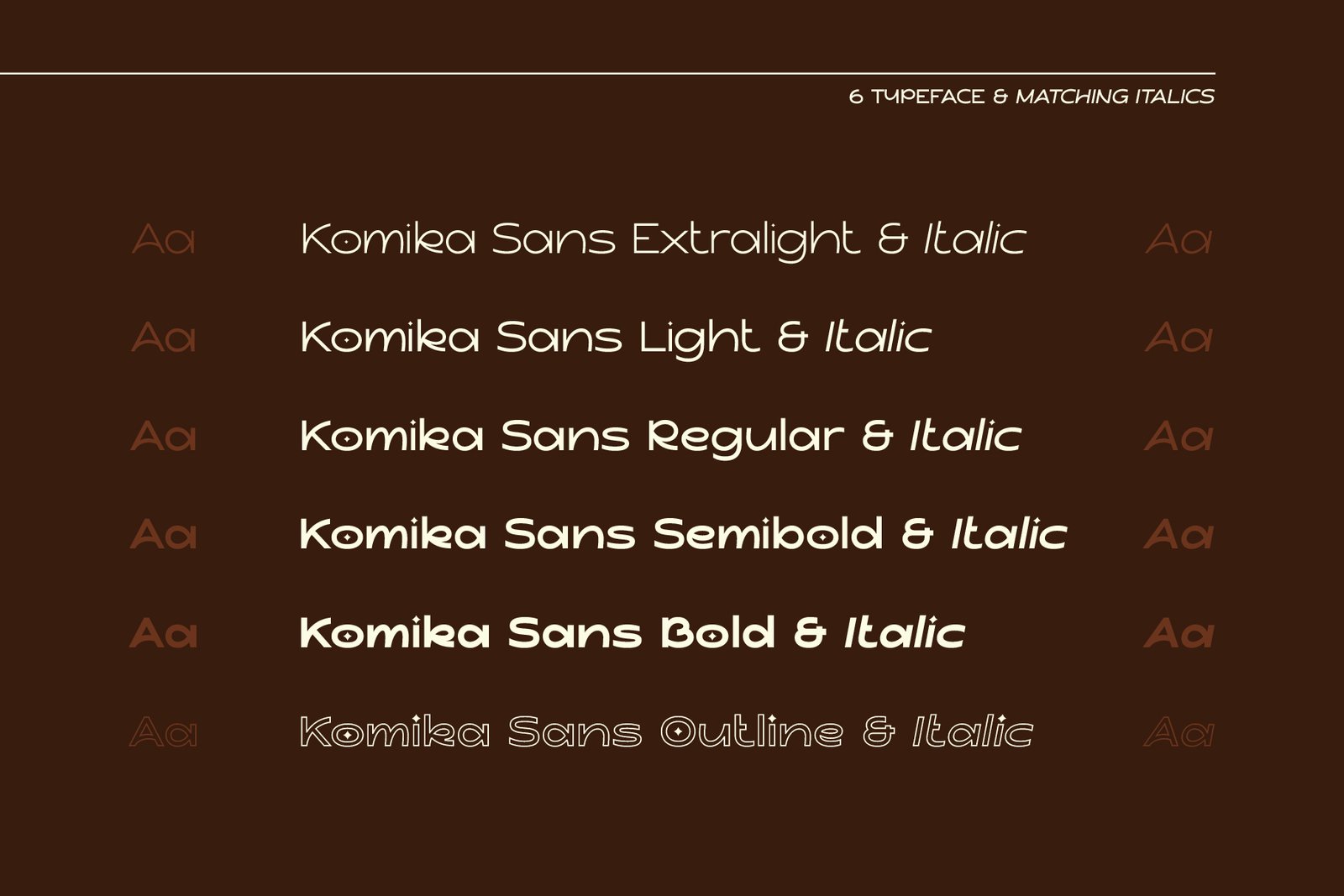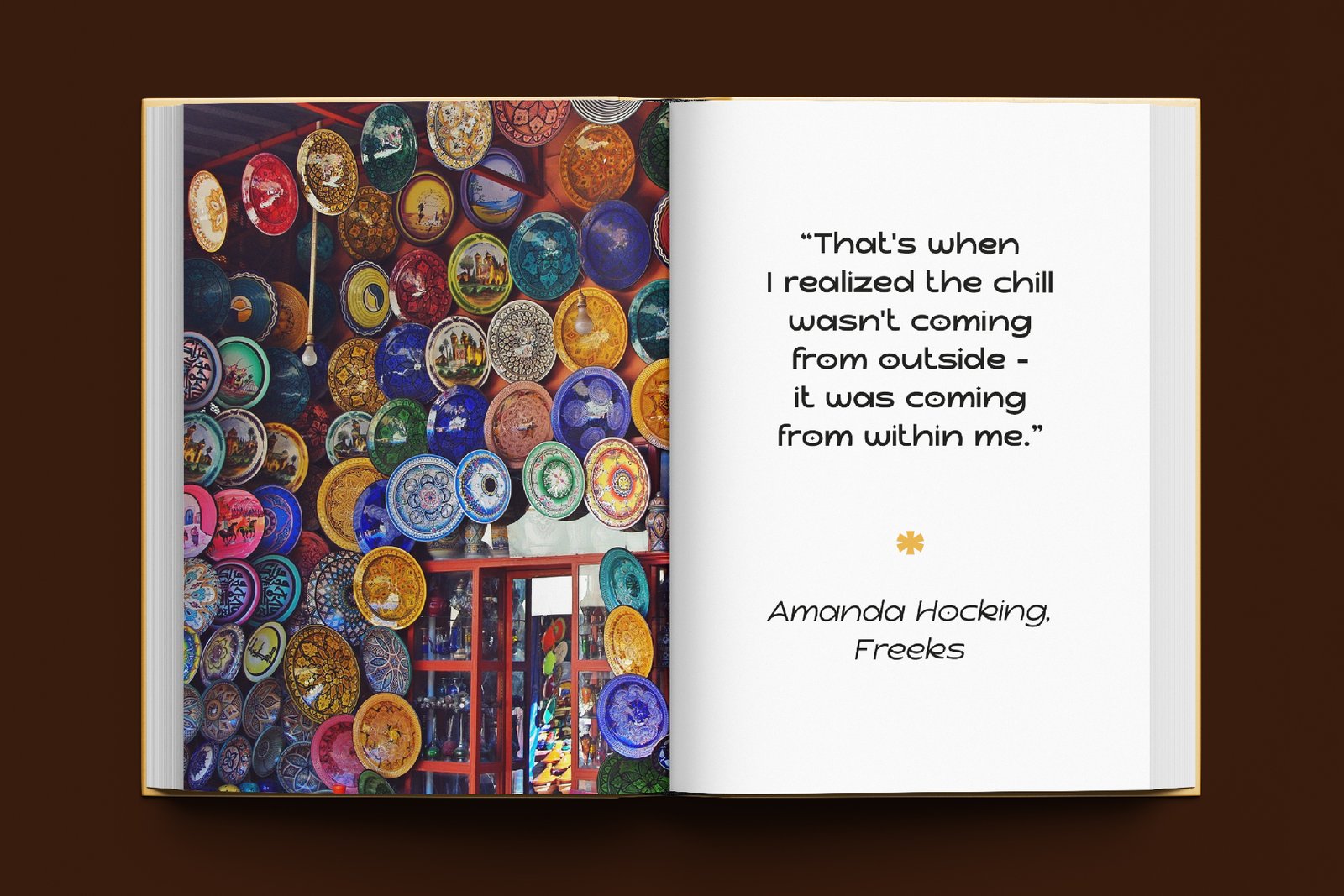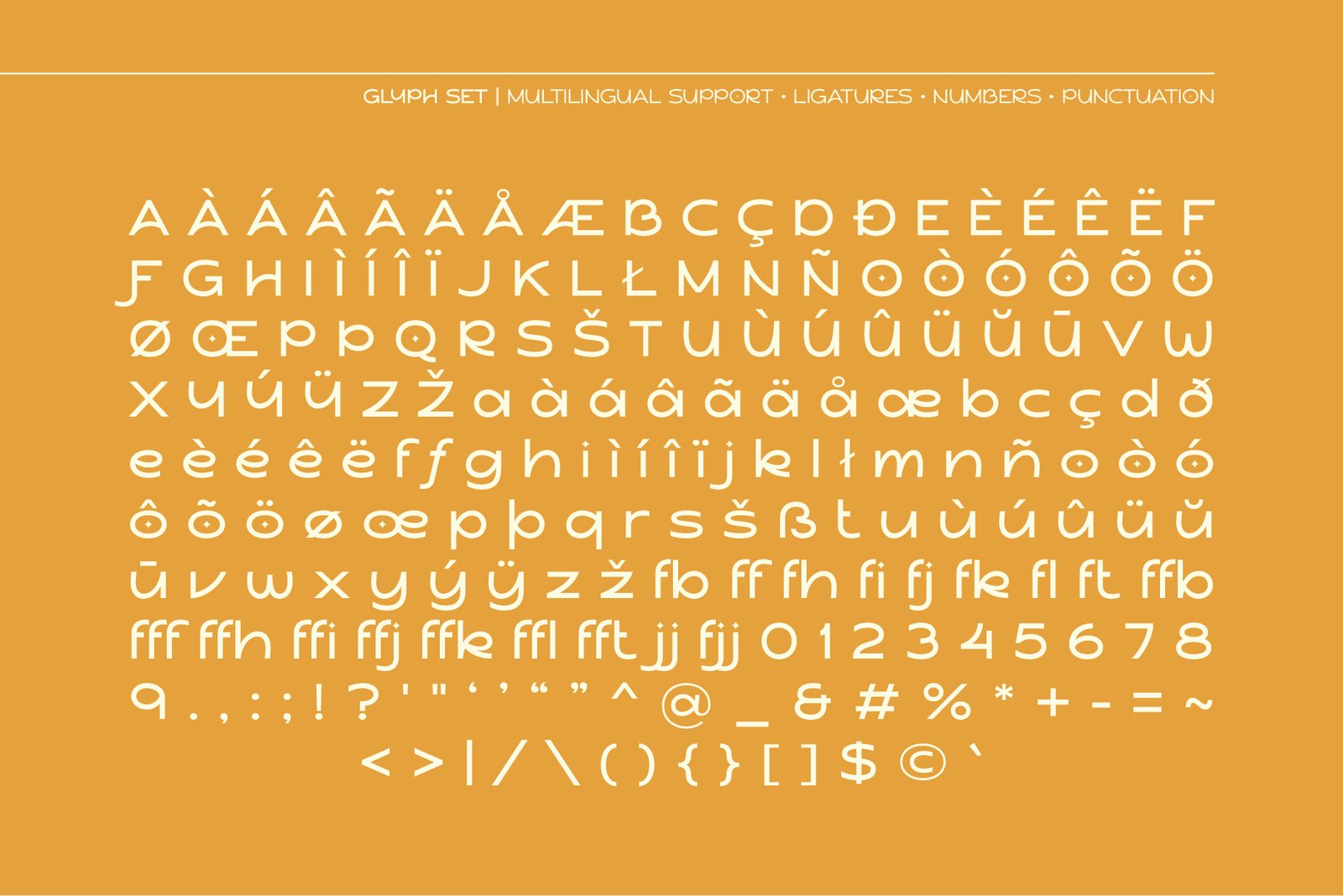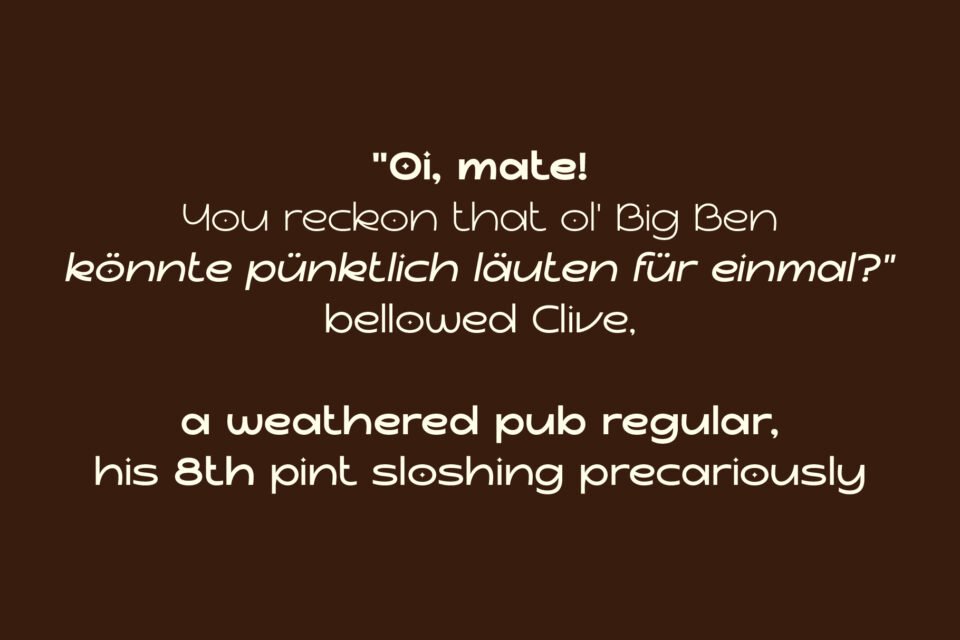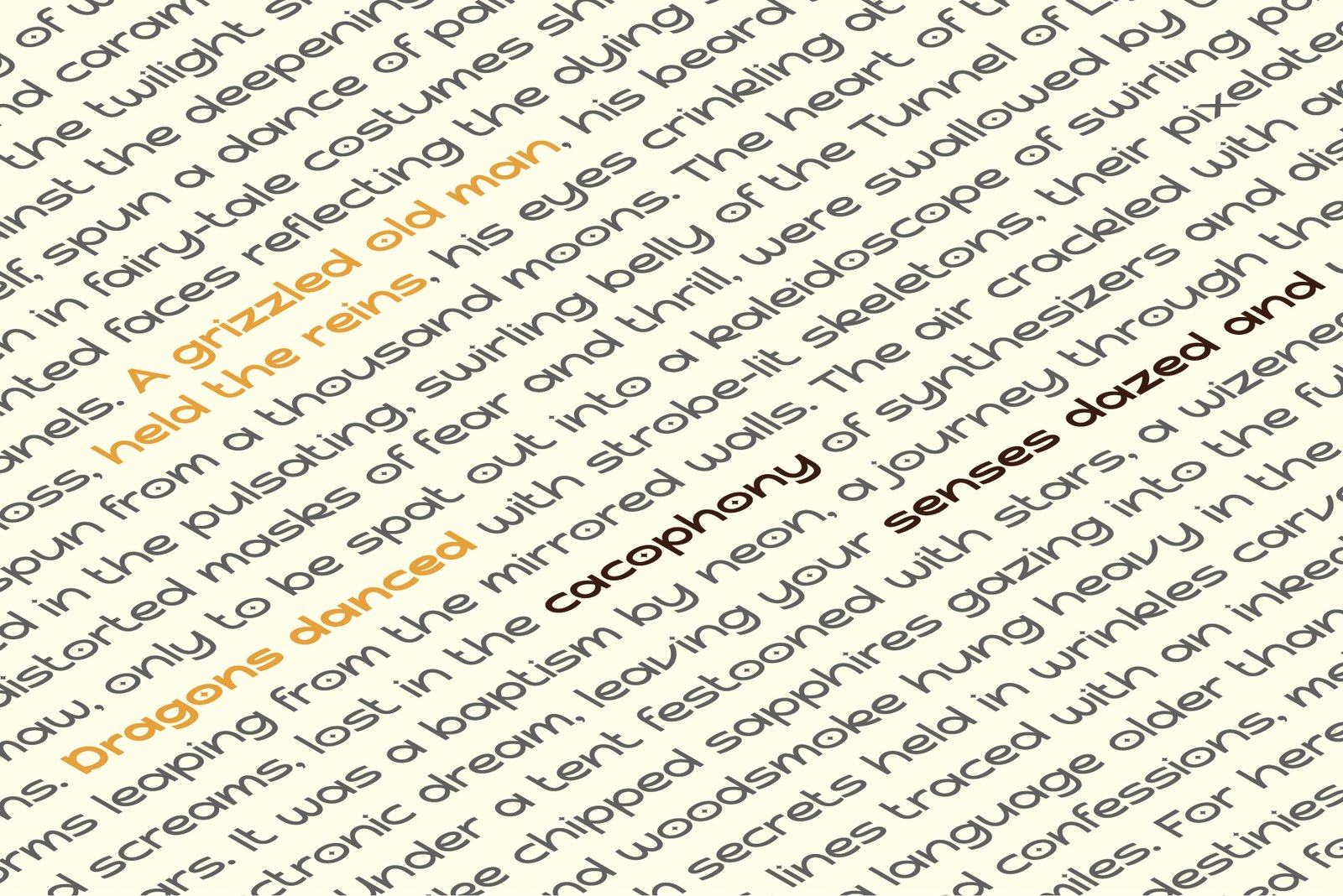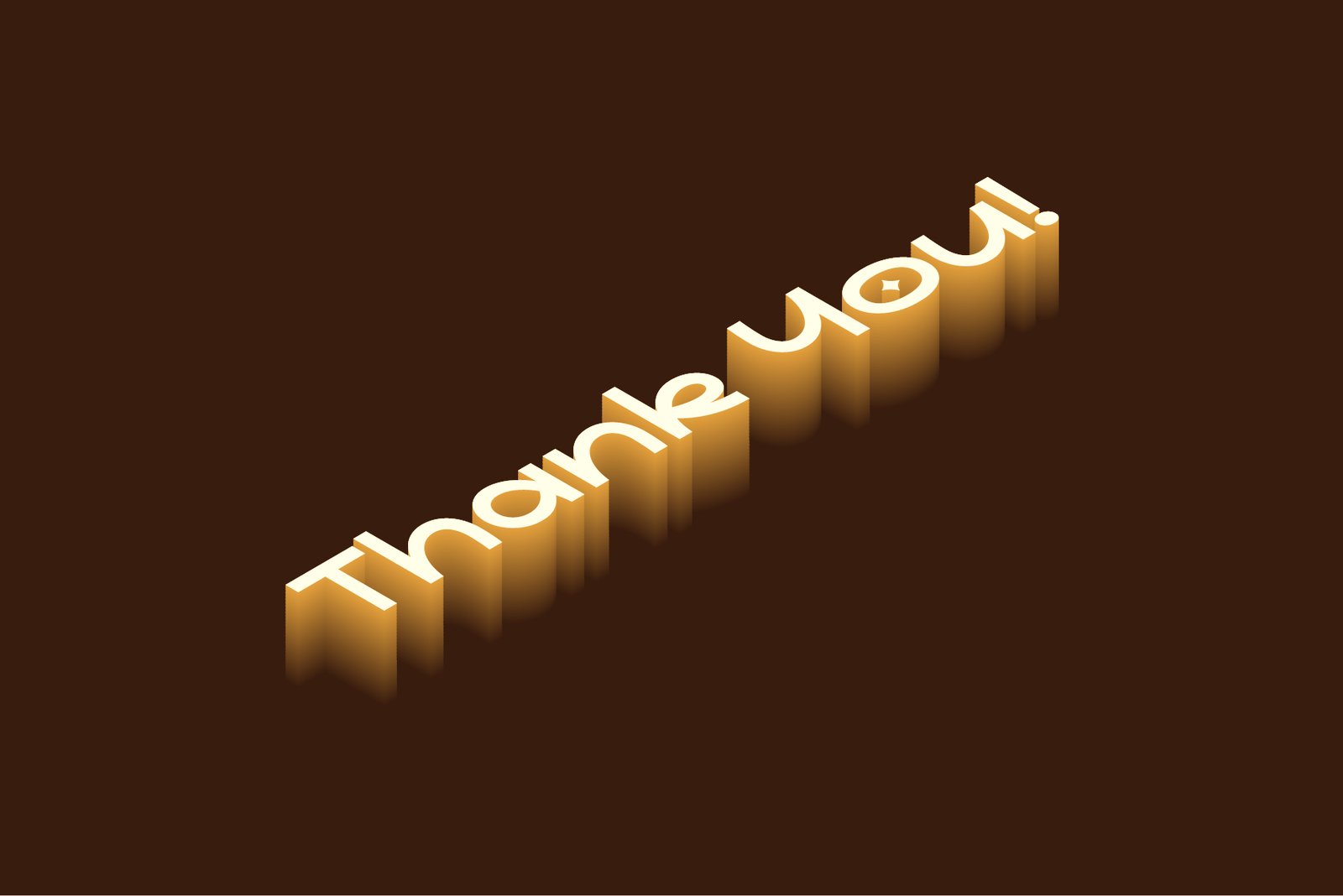
Komika Sans font family introduction, showing the full name and "modern wide sans serif family."
A sample text using the Komika Sans font, titled "Crafting Some Lore-Rich Magic."
Komika Sans font family showing all six weights: Extralight, Light, Regular, Semibold, Bold, and Outline, each with matching italics.
A book mockup displaying a quote in Komika Sans font, "That’s when I realized the chill wasn’t coming from outside – it was coming from within me."
Full glyph set for Komika Sans font, showing uppercase, lowercase, numbers, punctuation, and multilingual support.
A sample text in Komika Sans, showcasing a mix of English and German words to demonstrate multilingual support.
A diagonal text block using the Komika Sans font, highlighting specific words in a different color.
A 3D render of the words "Thank you!" in the Komika Sans font, with a glowing effect.
Komika Sans font family introduction, showing the full name and "modern wide sans serif family."
A sample text using the Komika Sans font, titled "Crafting Some Lore-Rich Magic."
Komika Sans font family showing all six weights: Extralight, Light, Regular, Semibold, Bold, and Outline, each with matching italics.
A book mockup displaying a quote in Komika Sans font, "That’s when I realized the chill wasn’t coming from outside – it was coming from within me."
Full glyph set for Komika Sans font, showing uppercase, lowercase, numbers, punctuation, and multilingual support.
A sample text in Komika Sans, showcasing a mix of English and German words to demonstrate multilingual support.
A diagonal text block using the Komika Sans font, highlighting specific words in a different color.
A 3D render of the words "Thank you!" in the Komika Sans font, with a glowing effect.
Komika Sans is an elegant, geometric modern wide sans serif font family, developed by Zafara Studies. Designed for maximum clarity and visual impact, the Komika Sans Font is perfect for designs that require a clean, contemporary, and highly readable look. With a total of 6 weights and 6 matching italics, this versatile font family is ready for various design projects, from web to print.
• 201 glyphs: uppercase, lowercase, ligatures, multilingual, numbers, punctuation
• 6 weights: extralight, light, regular, semibold, bold, outline
• 6 italics
The availability of a wide range of weights—from a light Extralight to a bold Bold, and a unique Outline style—allows you to create engaging and effective typographic hierarchies. Whether used for eye-catching headlines, strong titles, professional logotypes, or magazine layouts, the Komika Sans Font ensures your message stands out and is easily accessible. All styles are conveniently accessible via the OpenType menu, providing designers with flexibility.
Komika Sans – Modern wide sans serif
Komika Sans is an elegant, modern wide geometric sans serif font family. Ideal for headlines, titles, logotypes, and designs that require strong visual clarity.